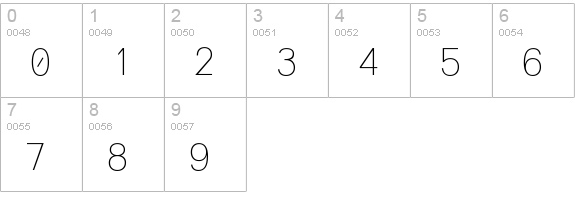
Lane - Narrow Font Details
Lane - Narrow is a distinctive, condensed-width variant in the Lane typeface family \xE2\x80\x94 well suited to design and typography projects.
Lane - Narrow is a sleek and stylish font that exudes elegance and sophistication. With its slim and slender design, this font is perfect for creating a modern and contemporary look in any design project. Whether you are designing a logo, website, or social media graphics, Lane - Narrow will add a touch of class and uniqueness to your work. This font is not only visually appealing but also highly versatile. Its narrow width makes it ideal for fitting more text into limited spaces, allowing you to maximize the impact of your message. Lane - Narrow is perfect for headlines, titles, and captions, as it effortlessly grabs attention and enhances readability. One of the best things about Lane - Narrow is that it is freely available to download at FontsMarket.com. This means that you can easily access this stunning font without any cost. Whether you are a professional designer or a hobbyist, Lane - Narrow offers you the opportunity to elevate your designs without breaking the bank. So why wait? Download Lane - Narrow today from FontsMarket.com and add a touch of sophistication and elegance to your design projects. With its sleek and slender design, this font will surely make a lasting impression on your audience.